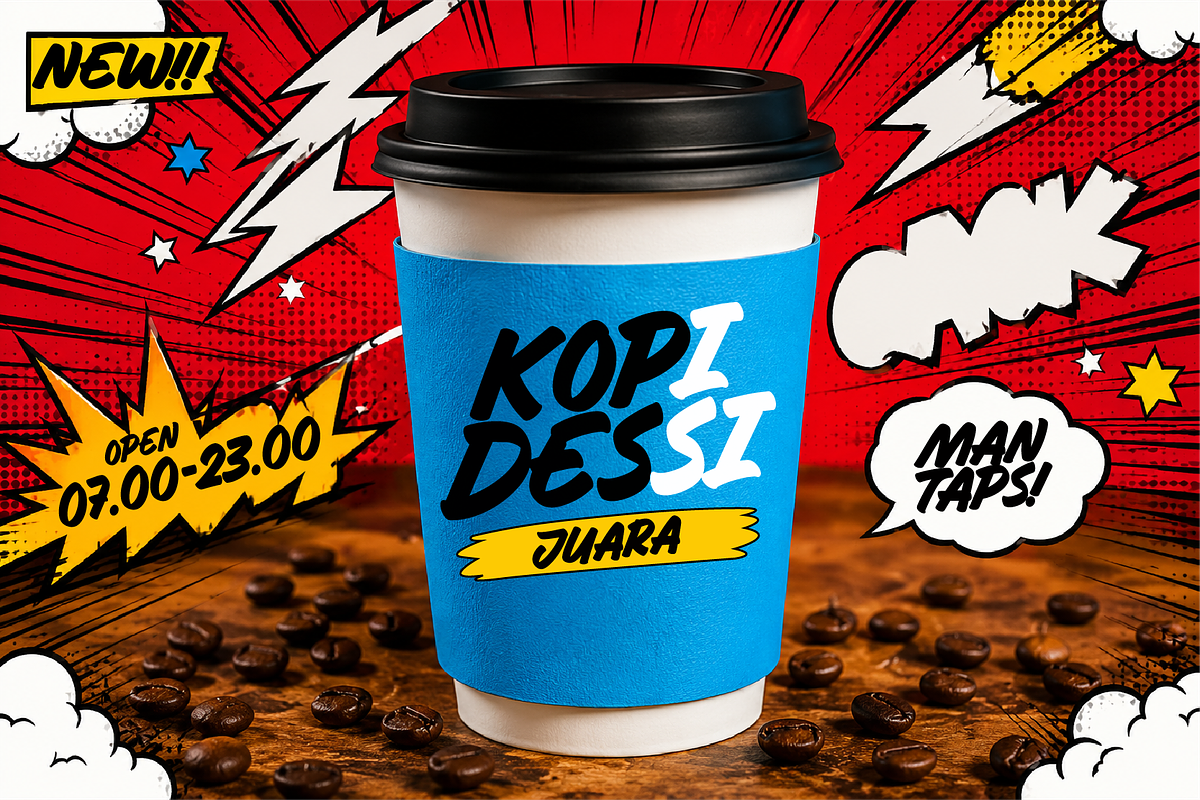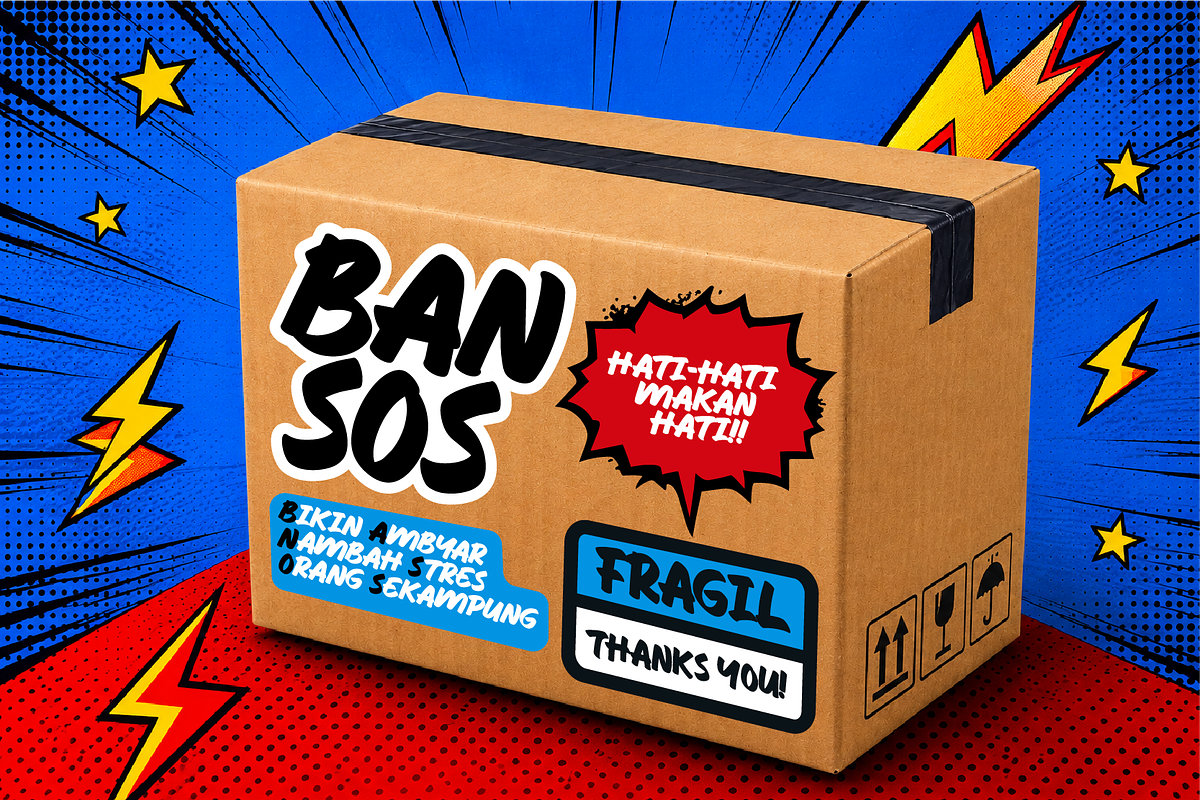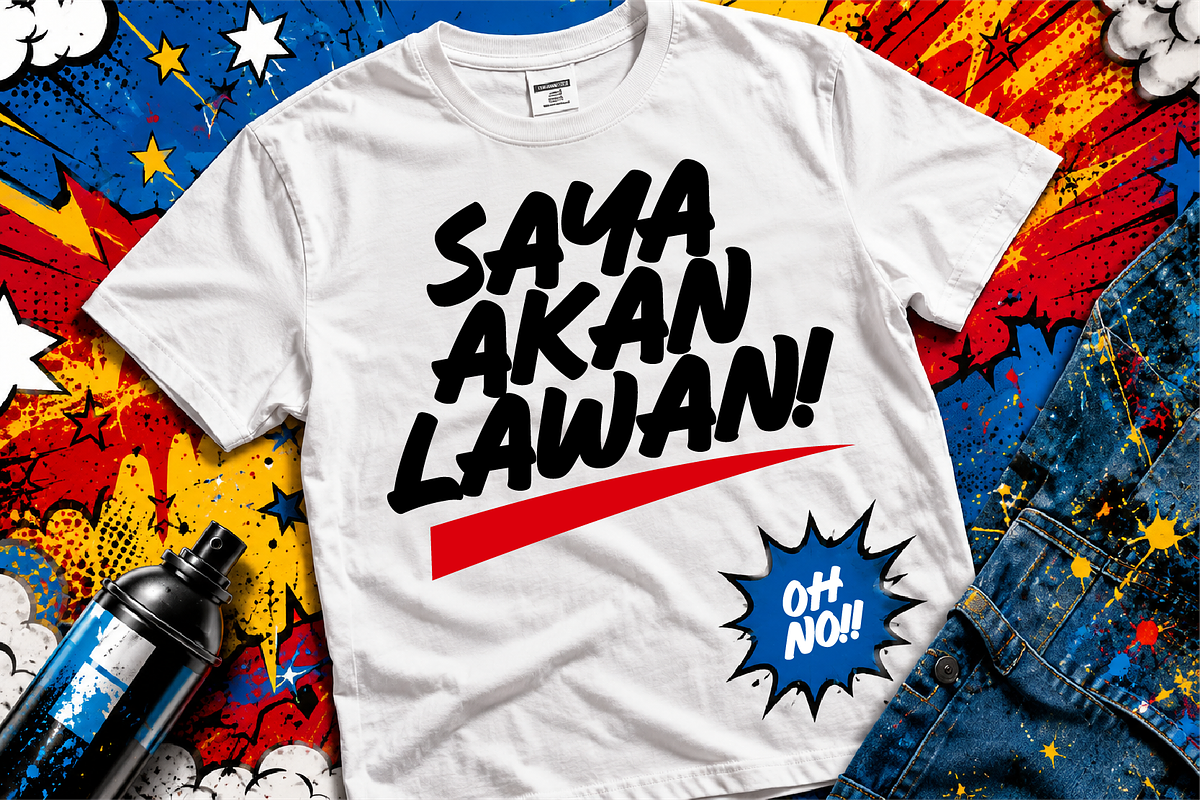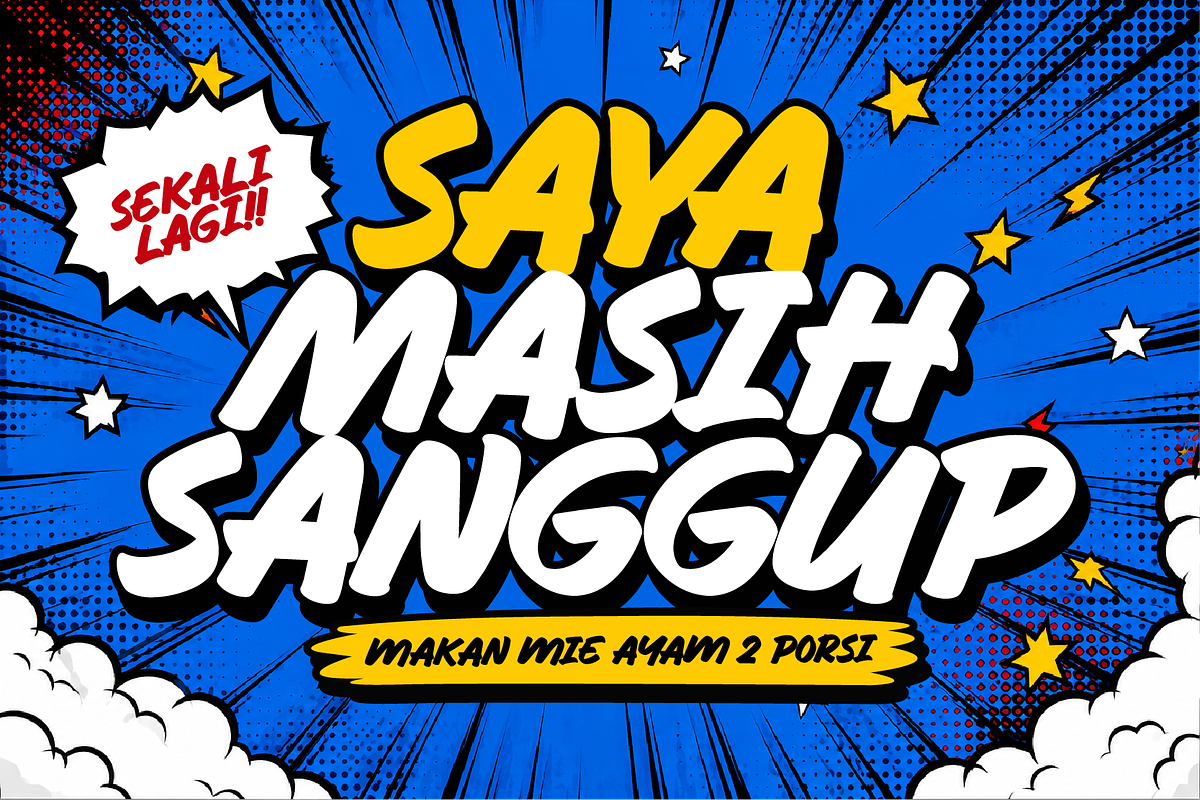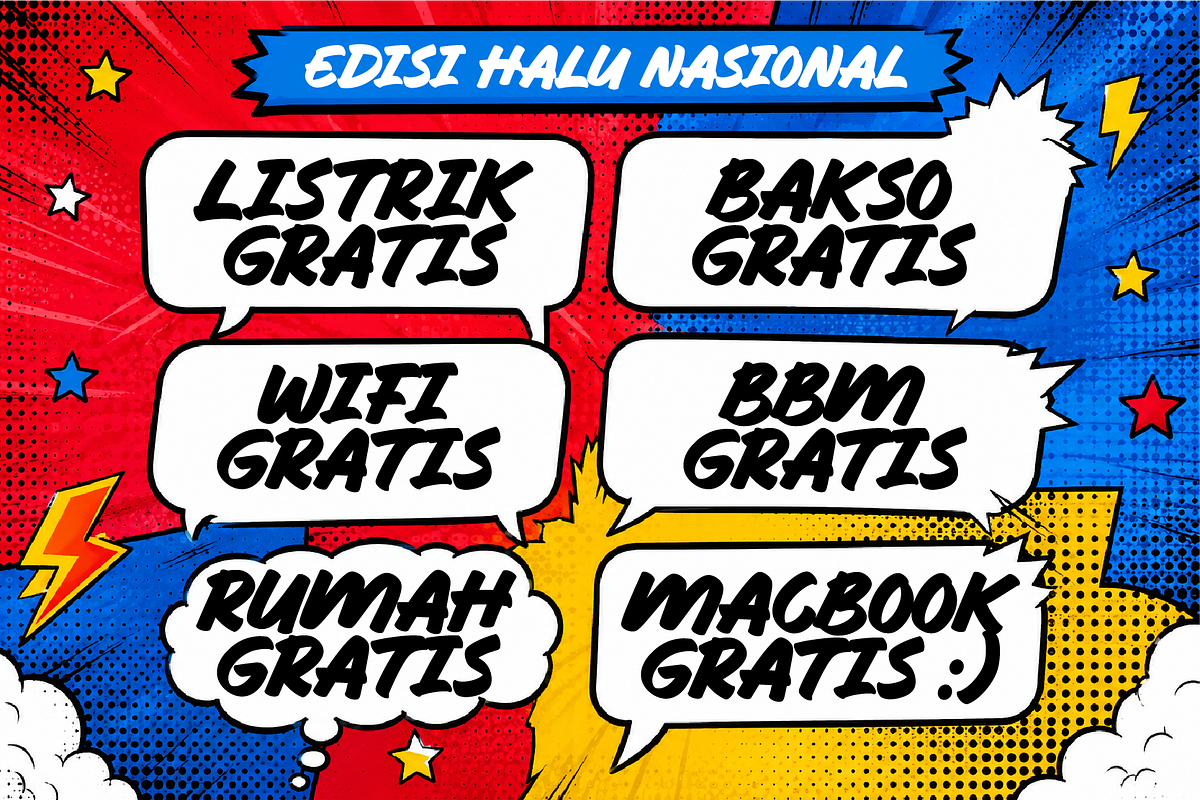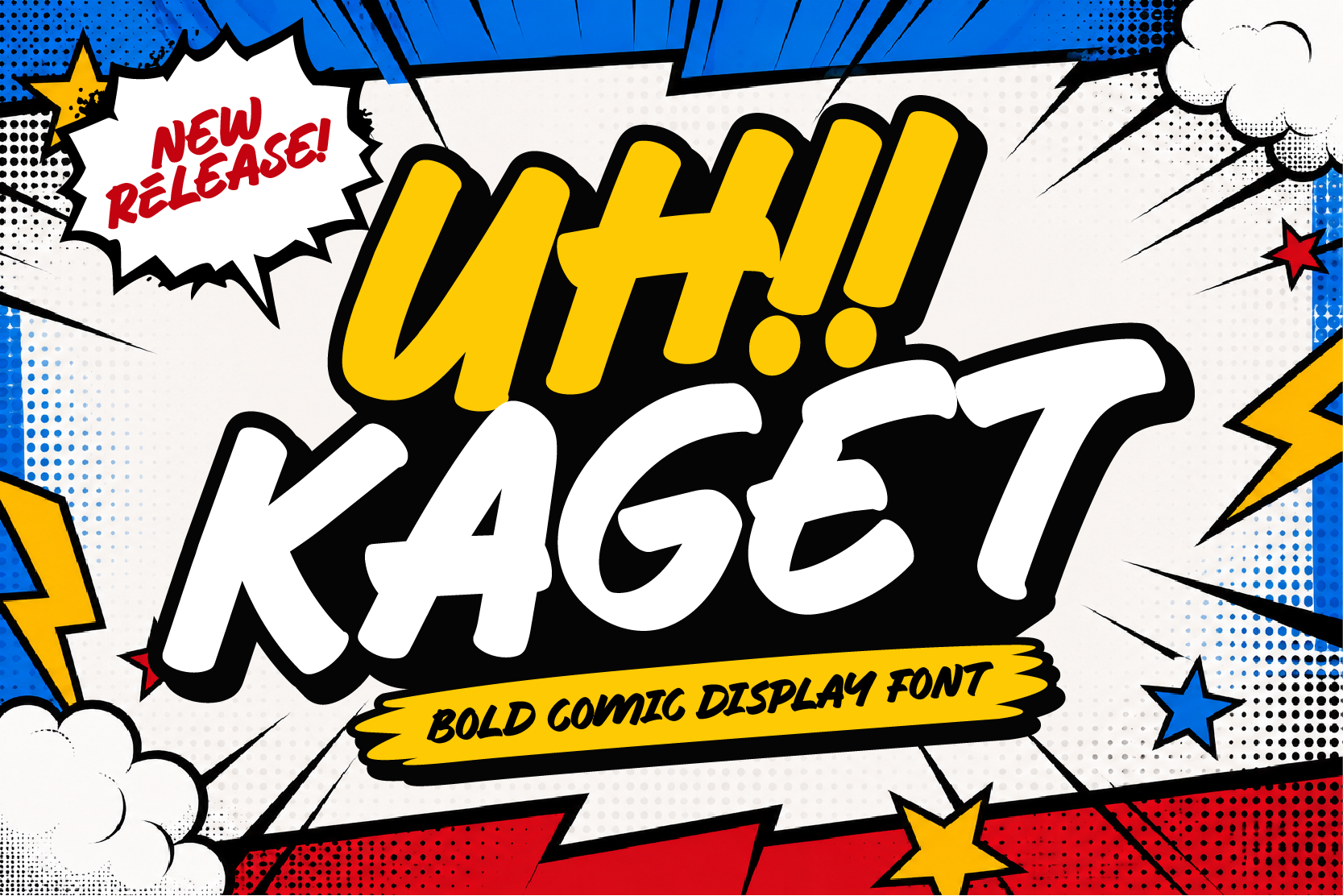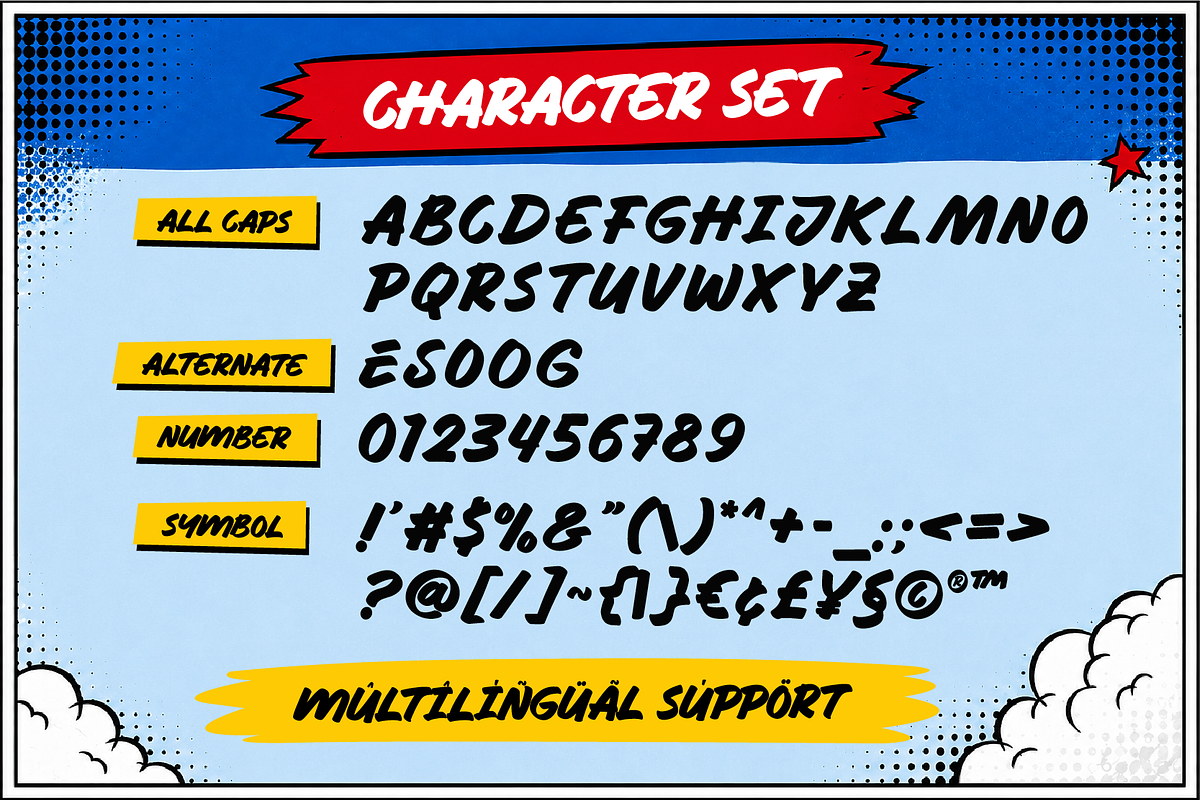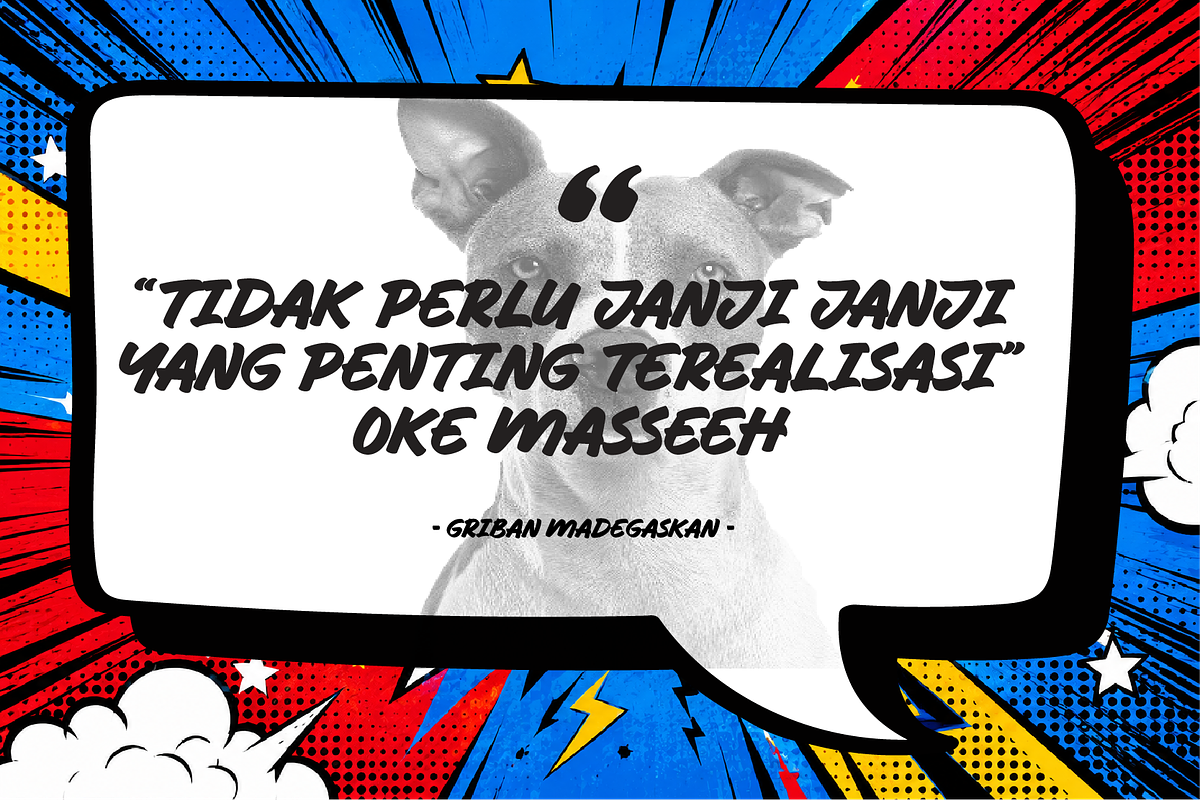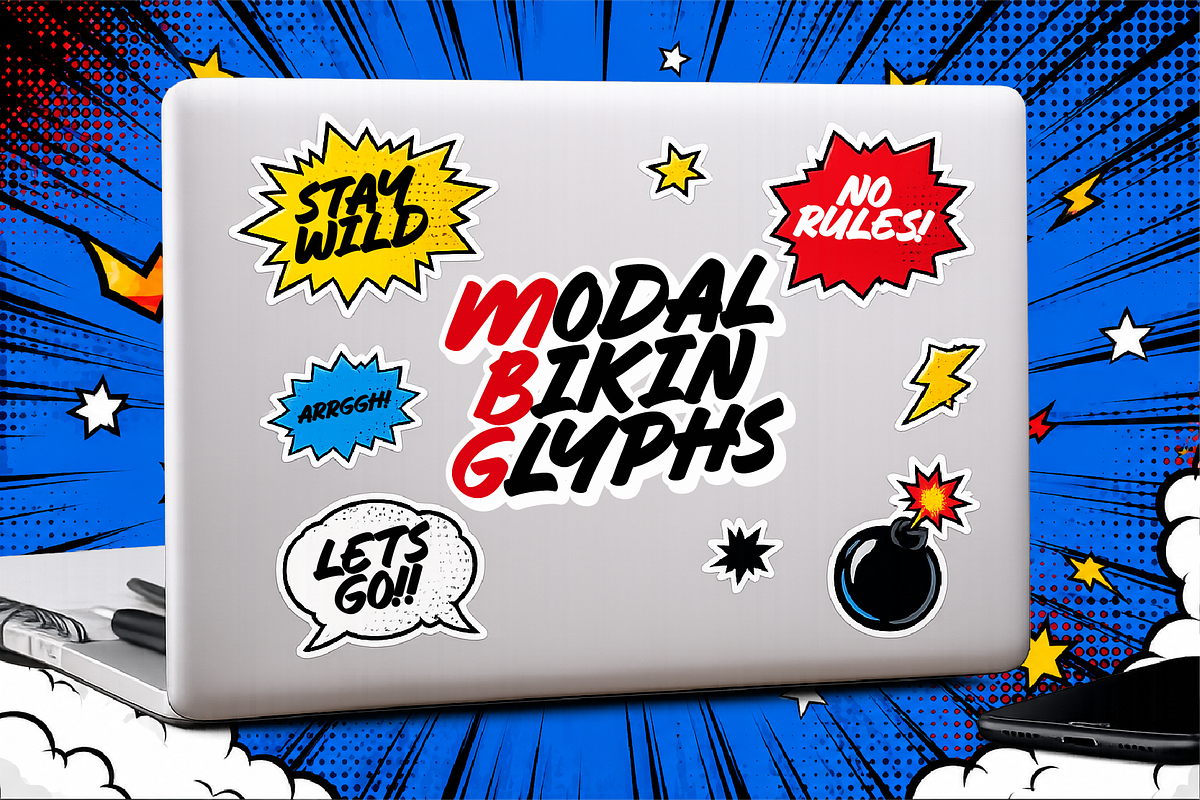
Uh Kaget Bold Comic Display Font
Uh Kaget is a bold comic display font inspired by classic comic books, pop art, expressive speech bubbles, and playful cartoon lettering. Featuring thick letterforms, energetic curves, and a fun comic style, this font is perfect for creating eye-catching designs with a lively and expressive personality.
Whether you're designing comic titles, posters, branding, packaging, social media graphics, YouTube thumbnails, children's projects, or colorful creative artwork, Uh Kaget brings a bold comic-book vibe that instantly grabs attention.
✨ Features
• Uppercase & Lowercase
• Numbers & Punctuation
• Alternate Characters
• Multilingual Support
🔥 Perfect For
Comic book titles, cartoon artwork, posters, logos, branding, packaging, children's books, stickers, social media graphics, YouTube thumbnails, advertising, editorial layouts, and playful typography projects.